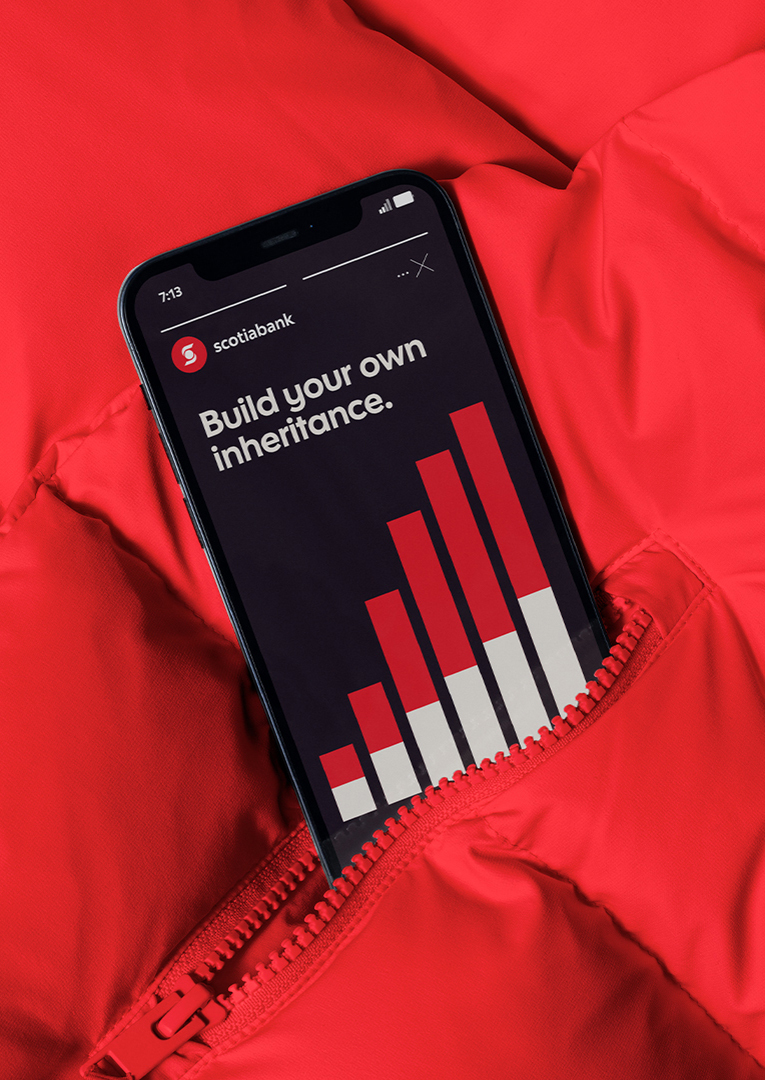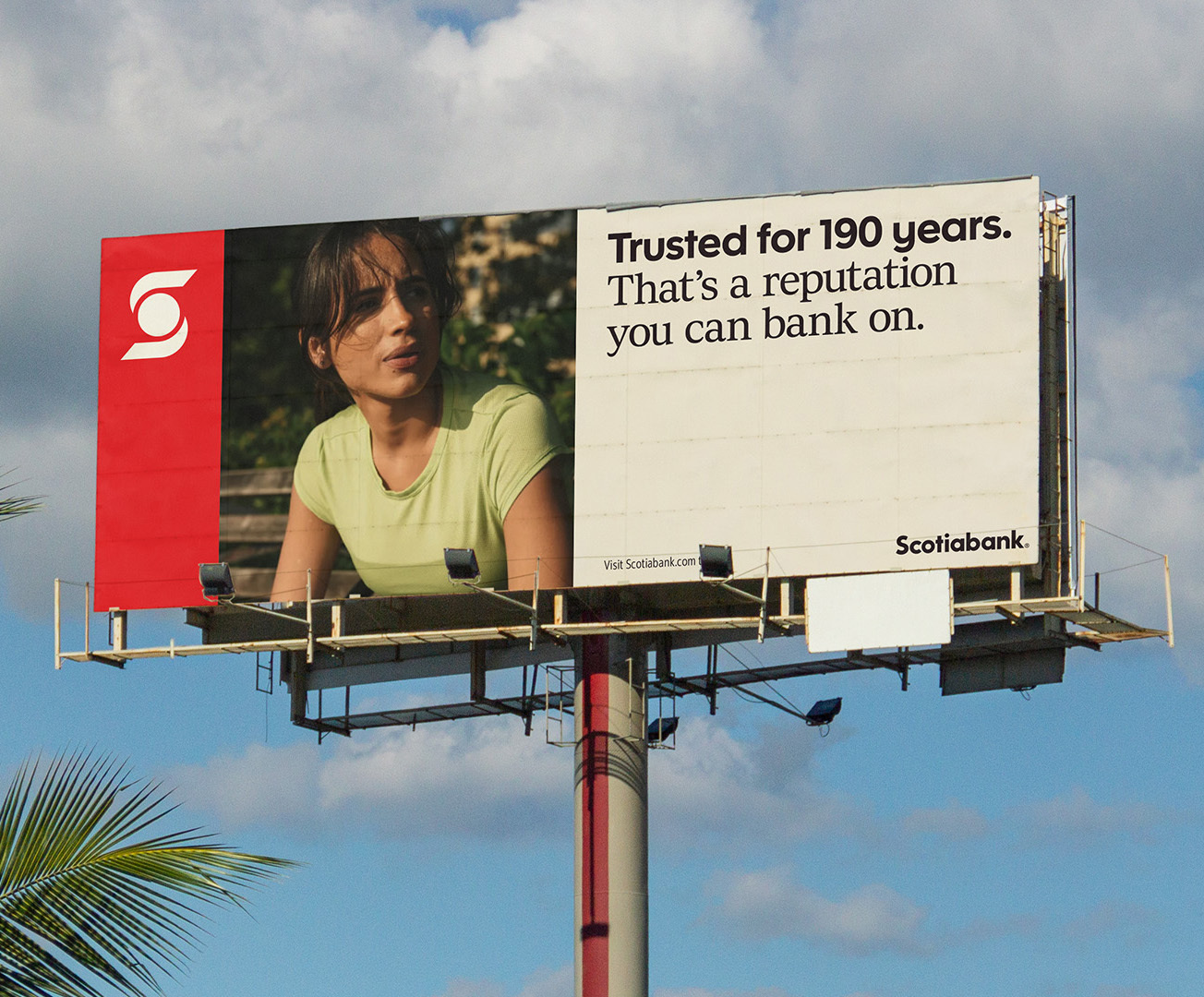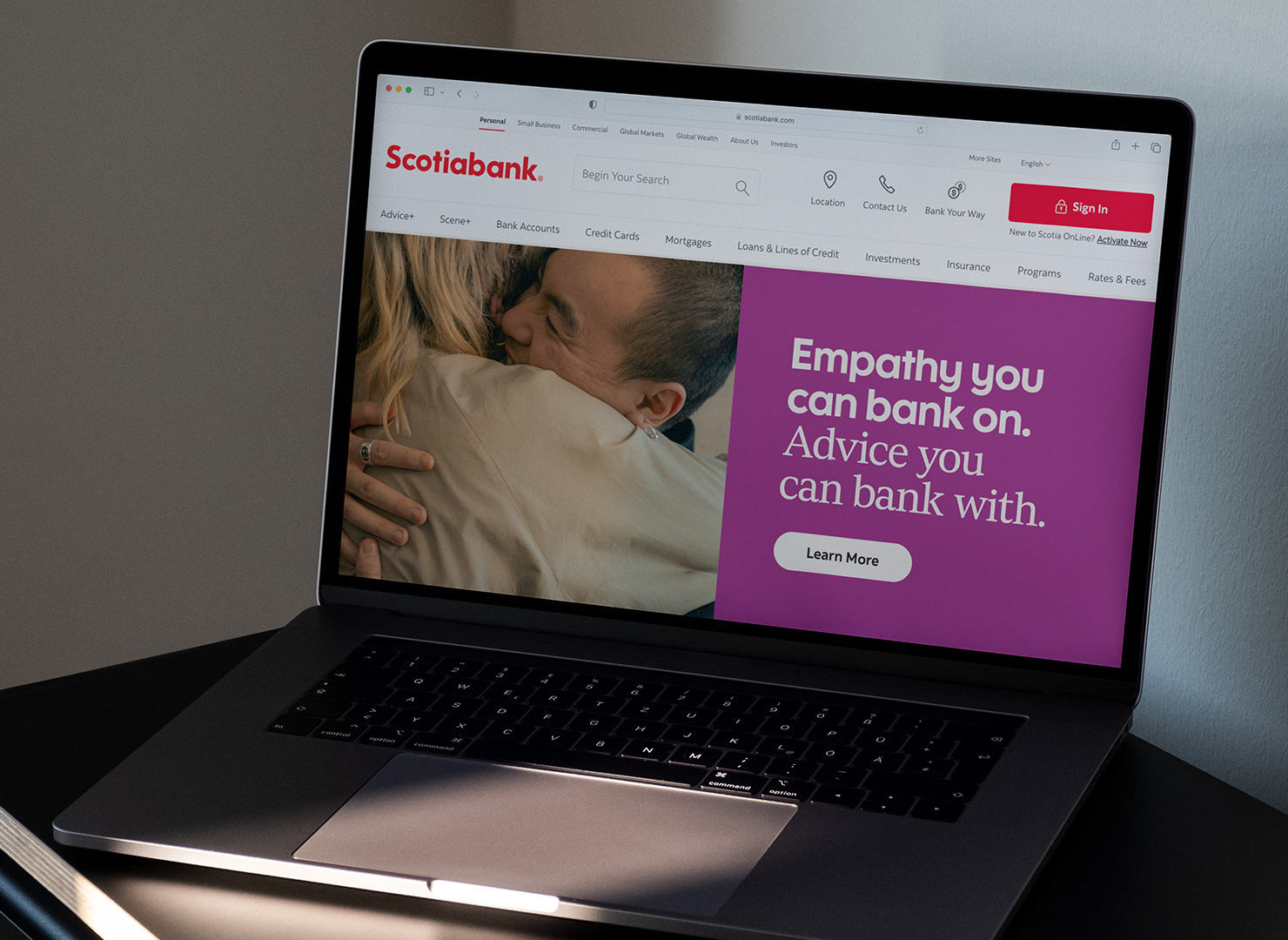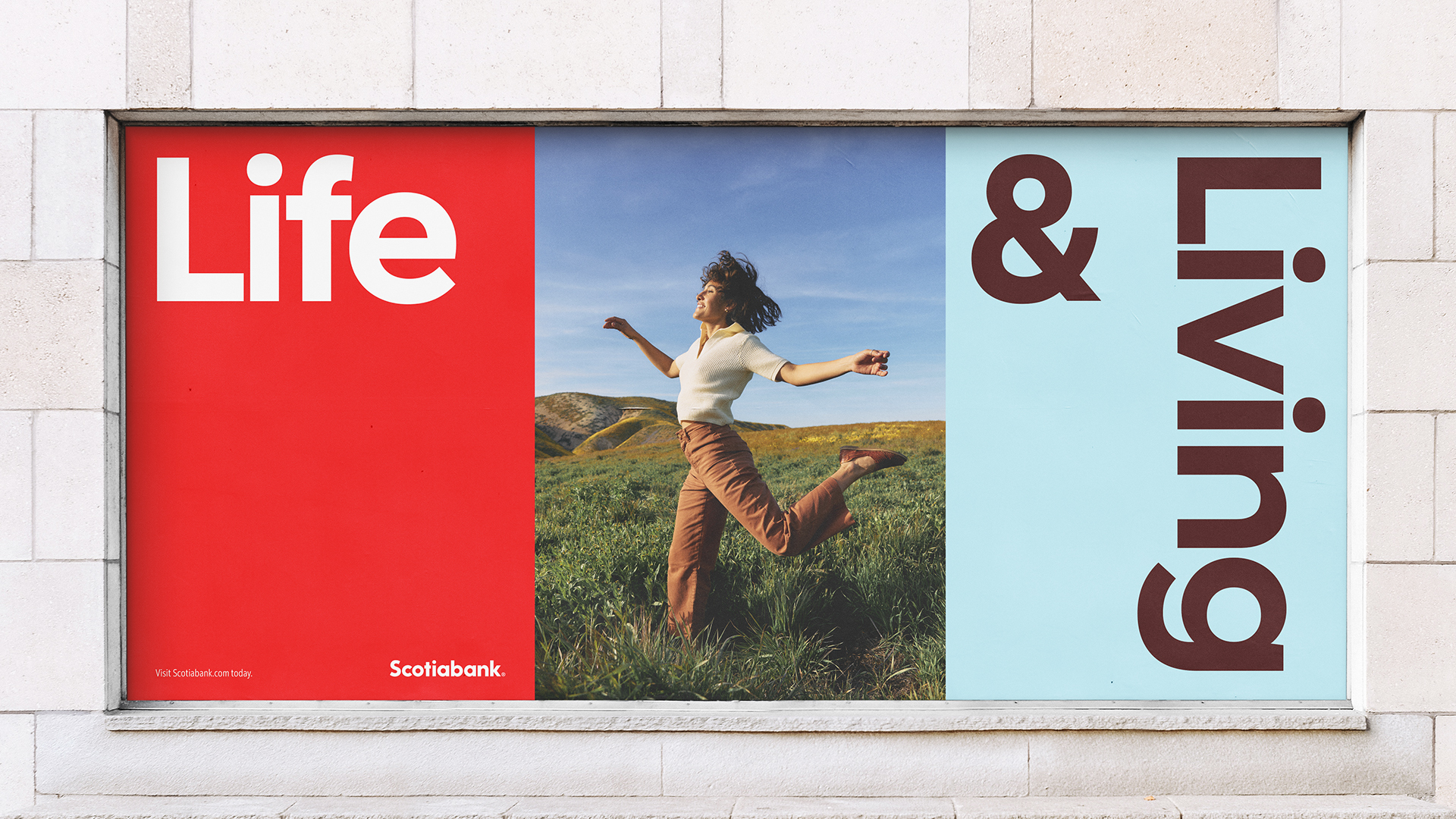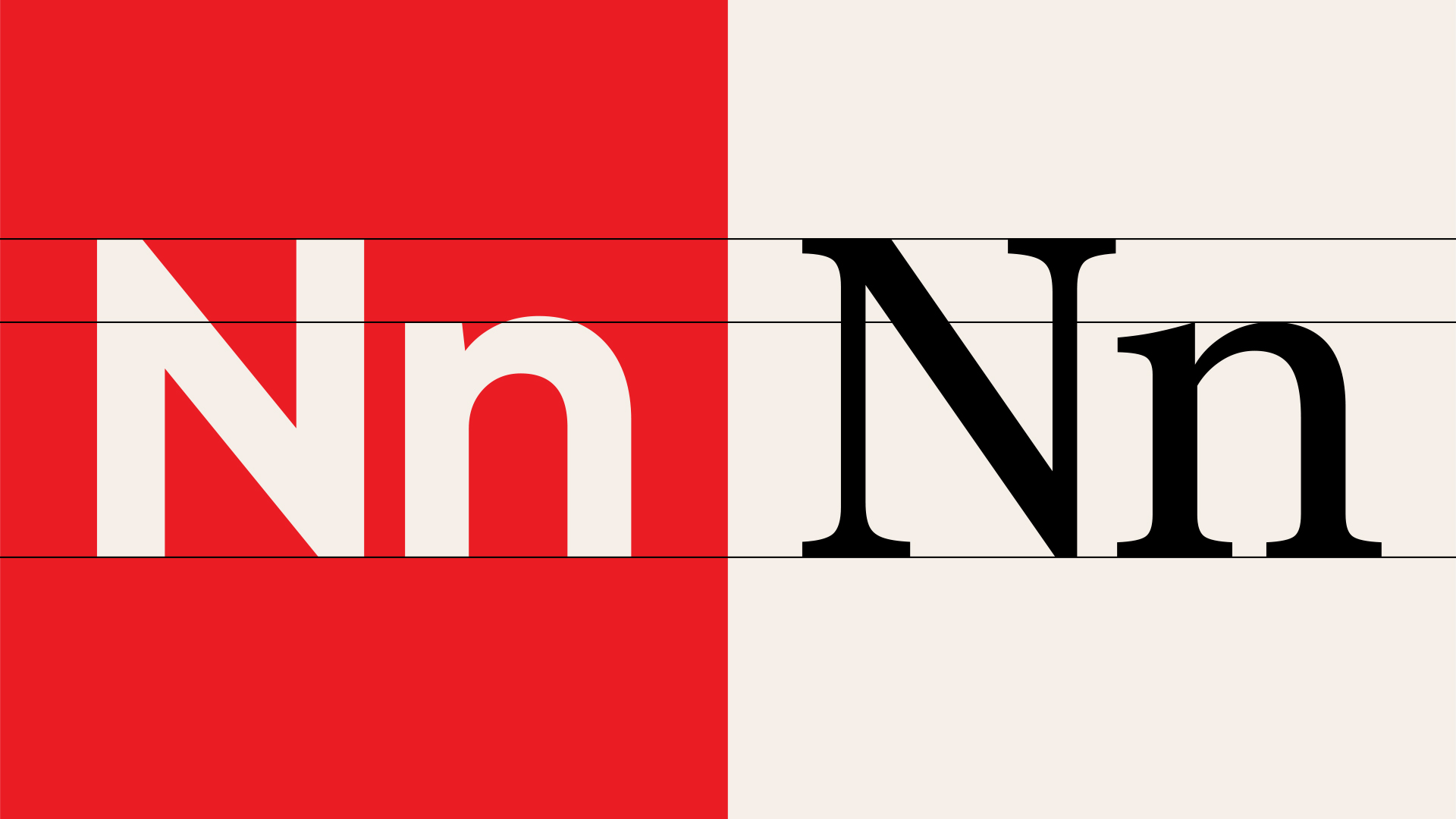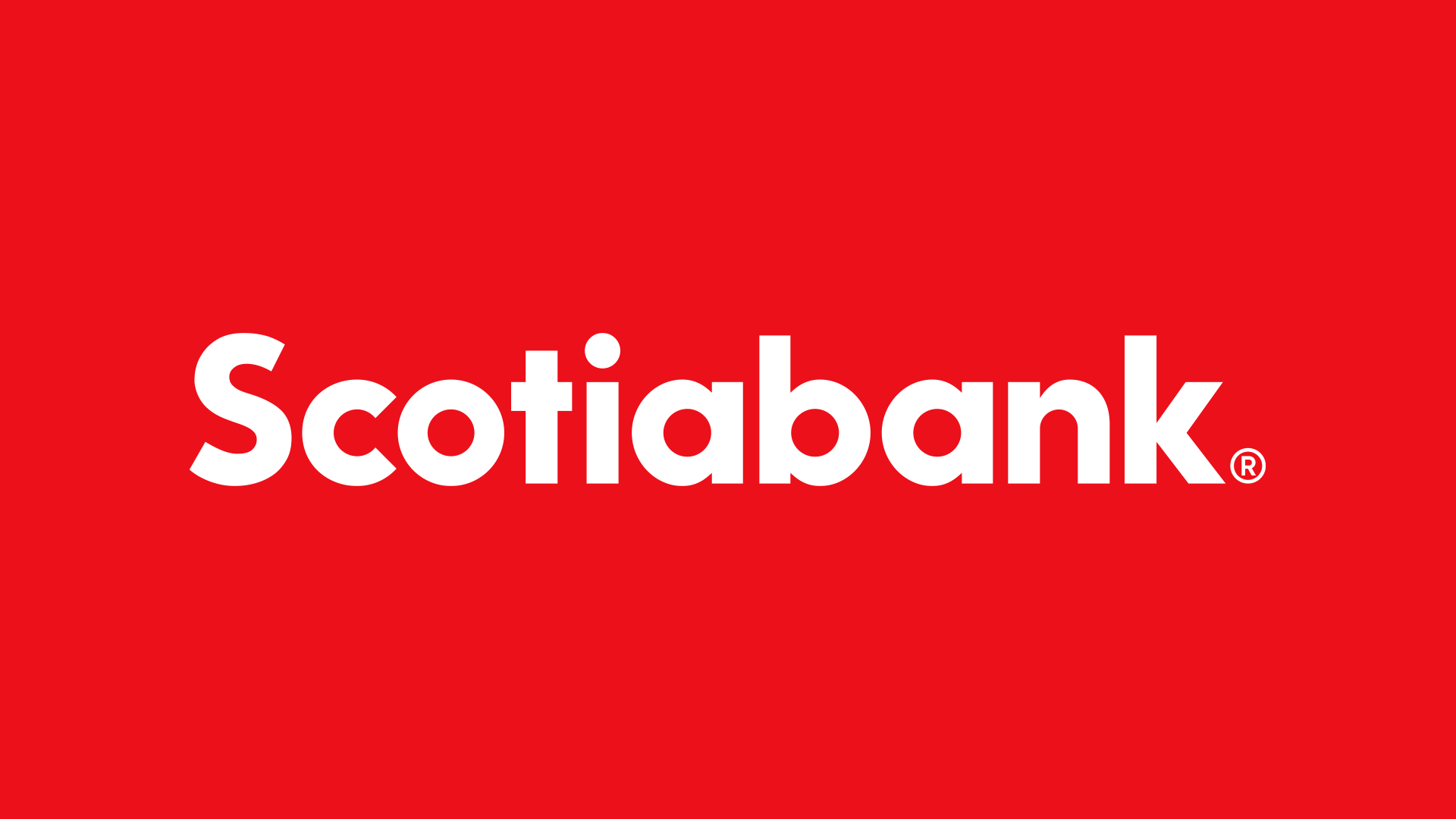
Scotia
A Custom Font Family for Scotiabank
Scotia specimen reading 'Smart banking'
Lowercase 'a' in Scotia and Scotia Serif various styles
Scotiabank’s bespoke type system pairs a highly functional geometric sans with a warm, high-contrast serif. Built for all brand communications, the sans features Display, Text, and Condensed cuts that handle everything from bold headlines to dense legal text.
Scotia, Custom Font Family, 2019–2024
Latin
Over 780 languages